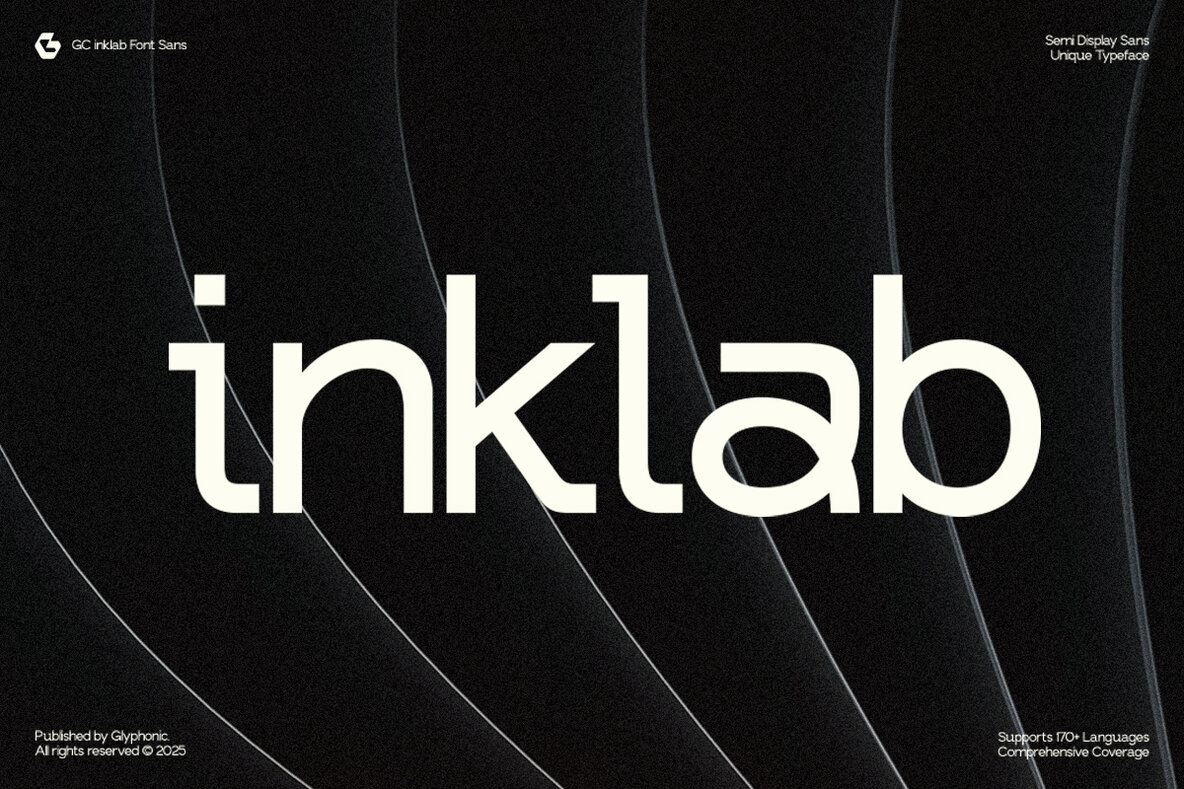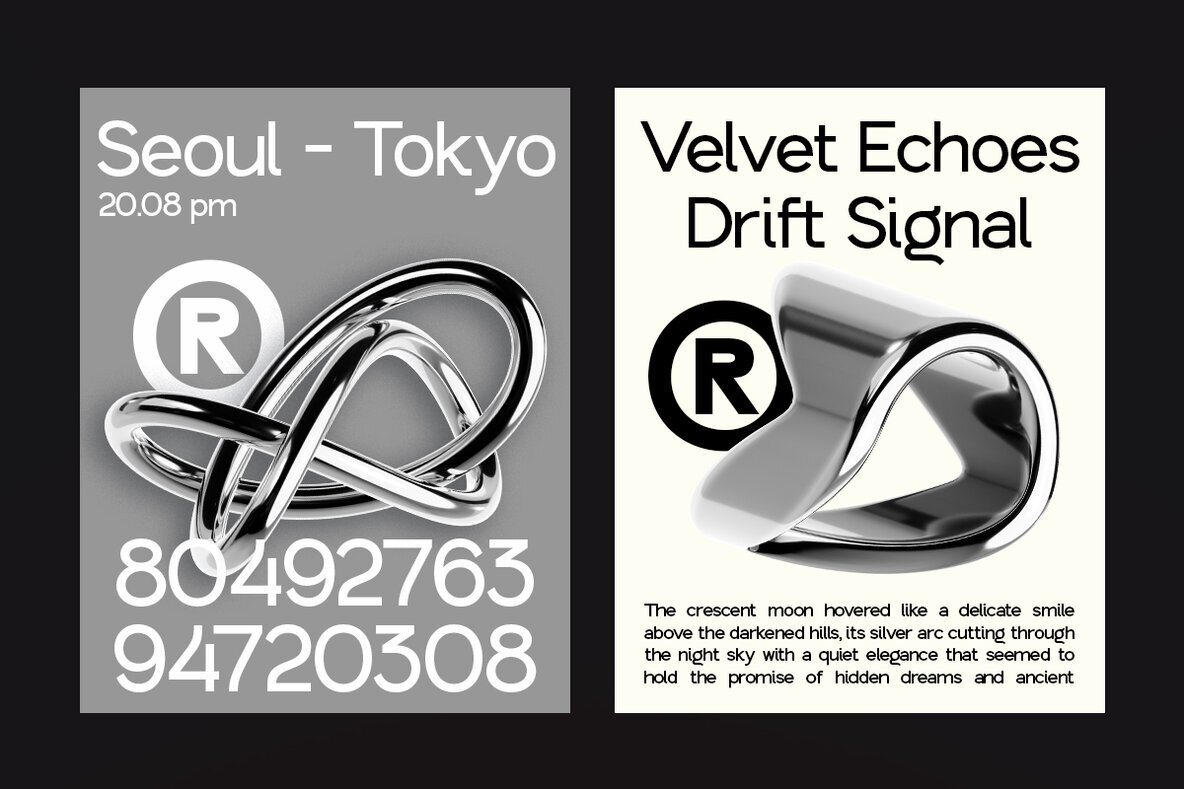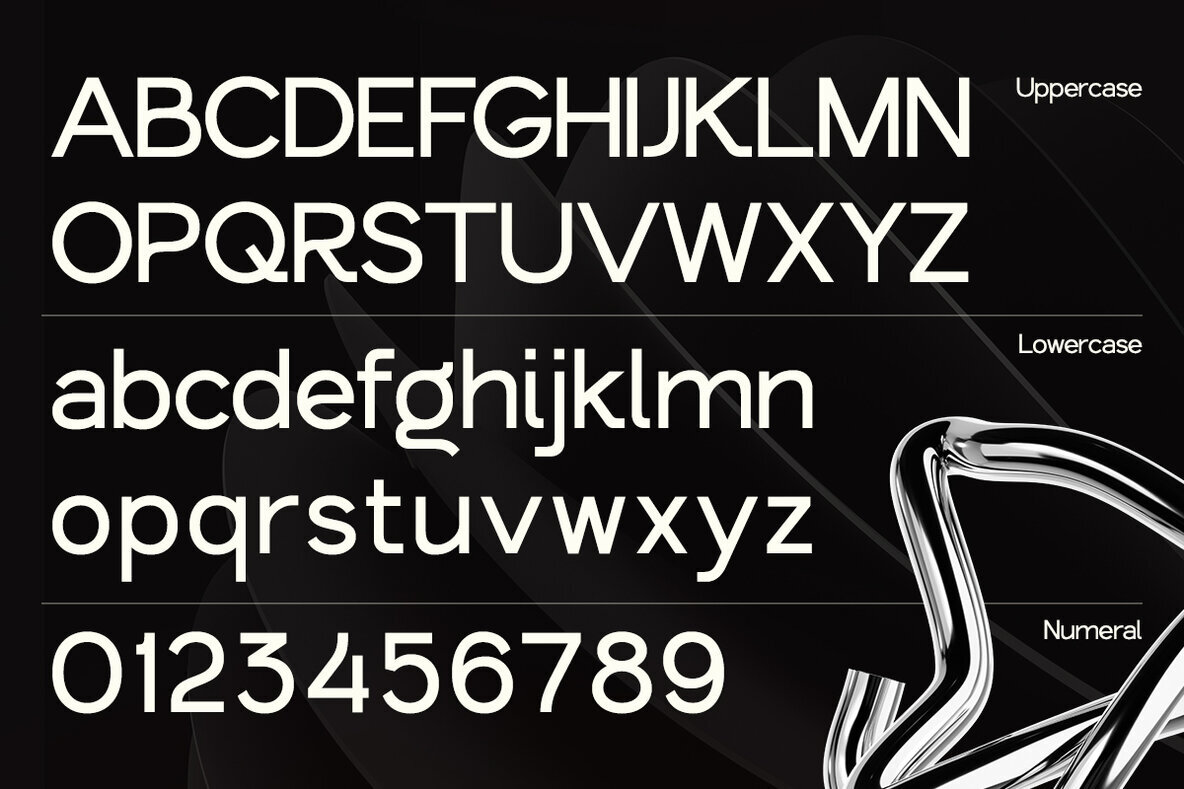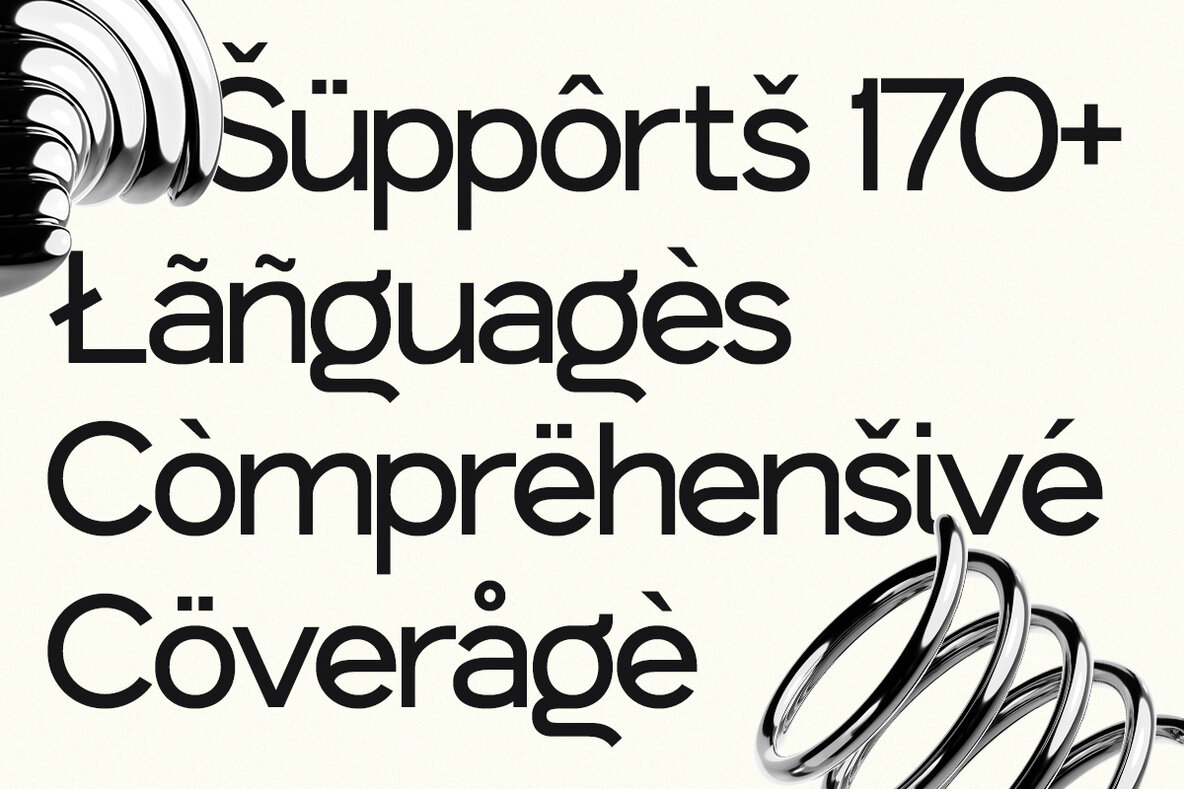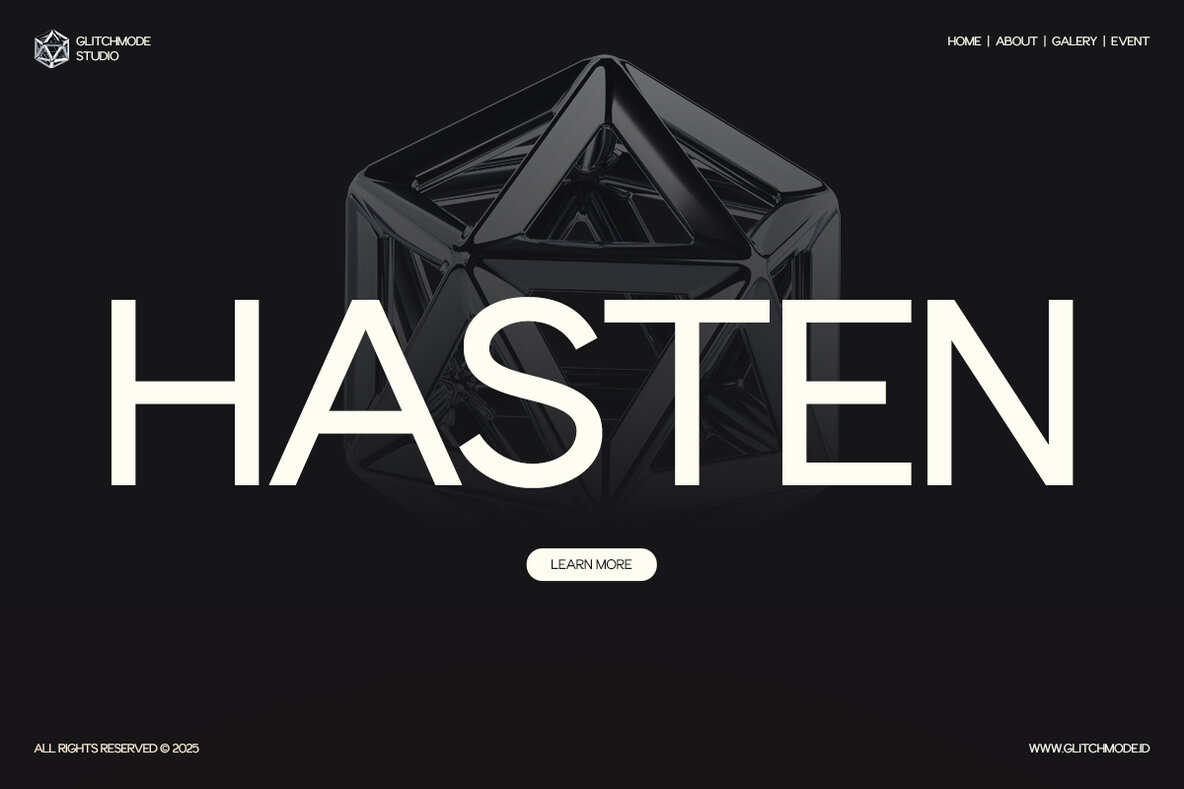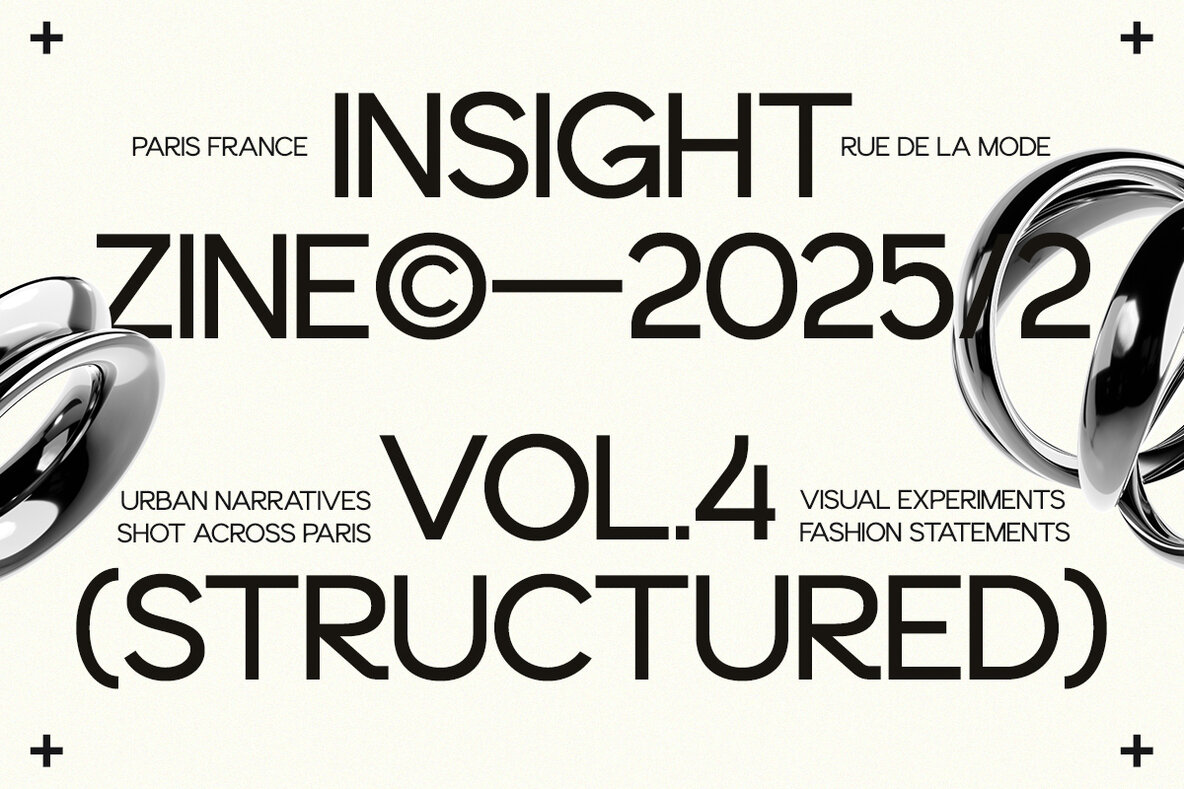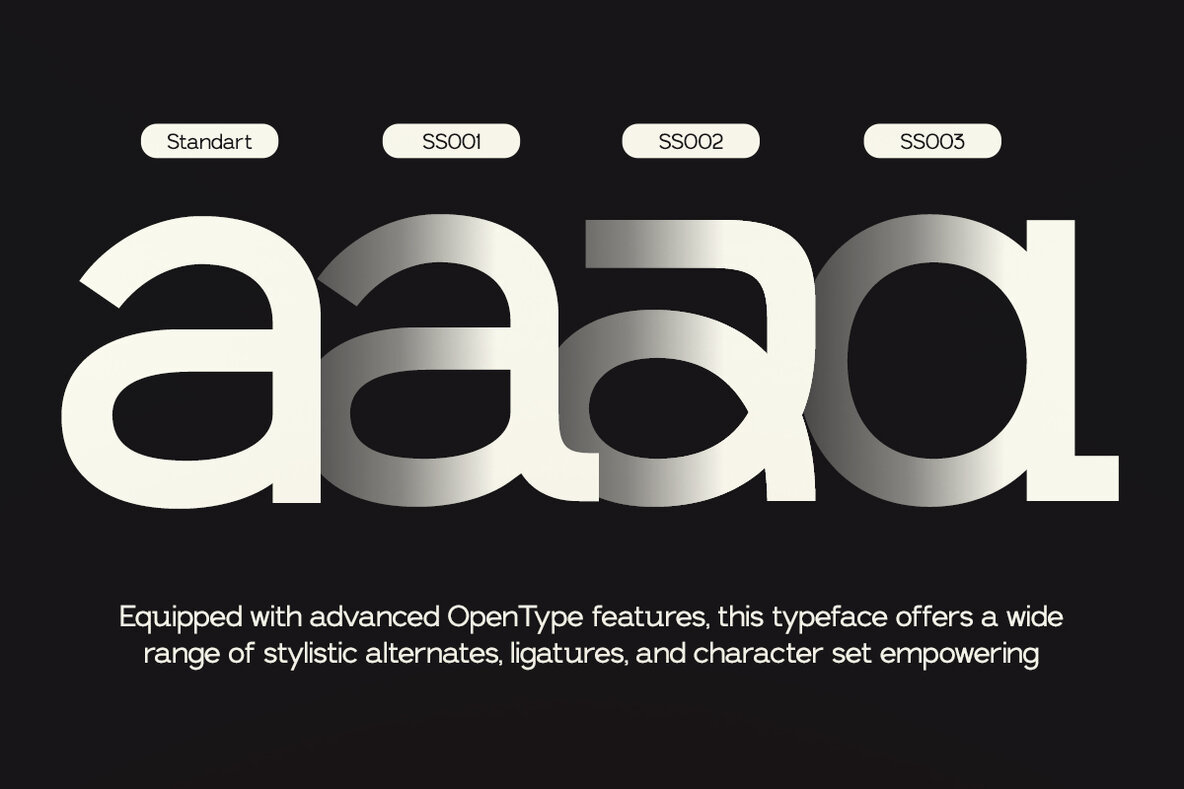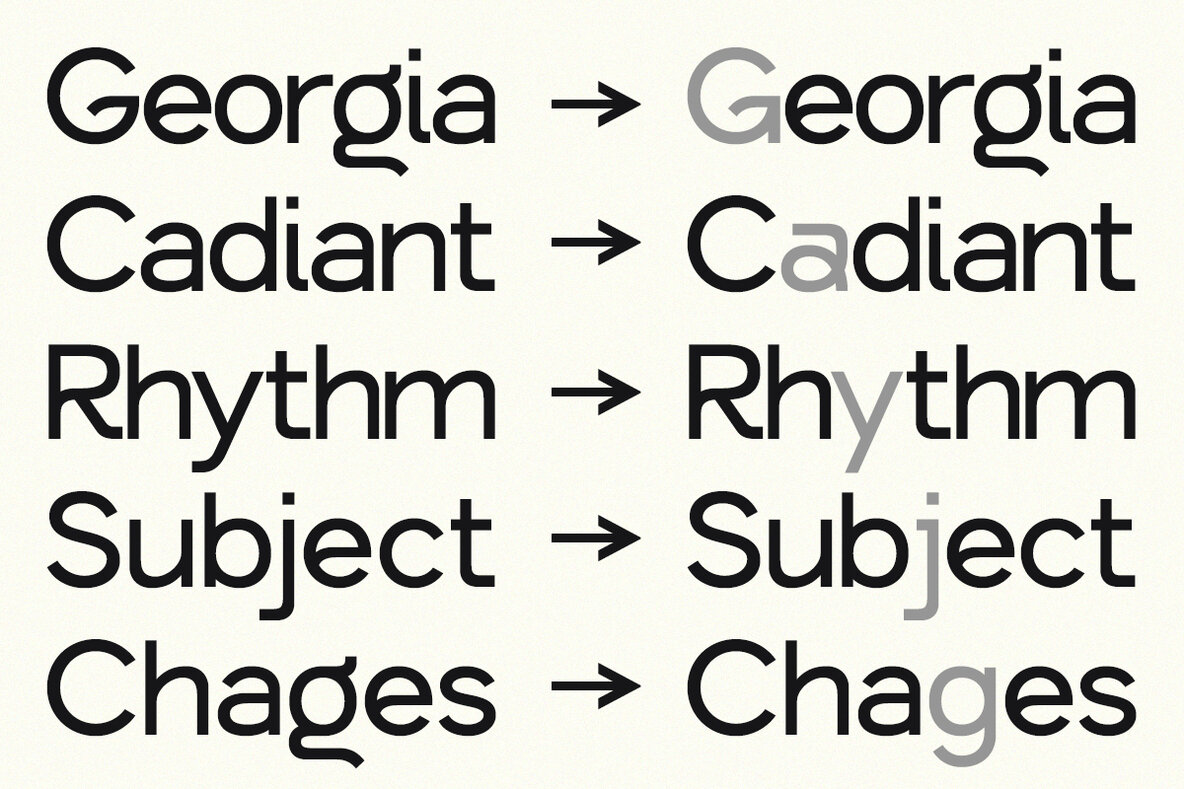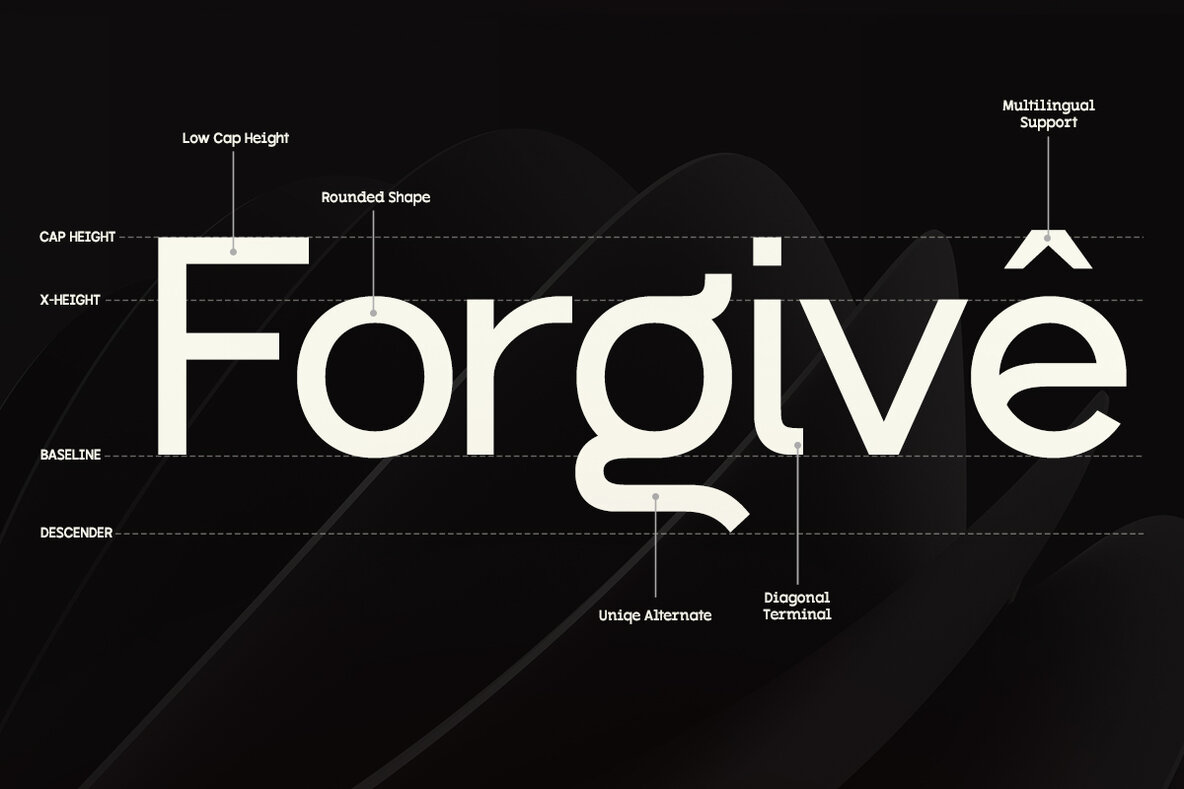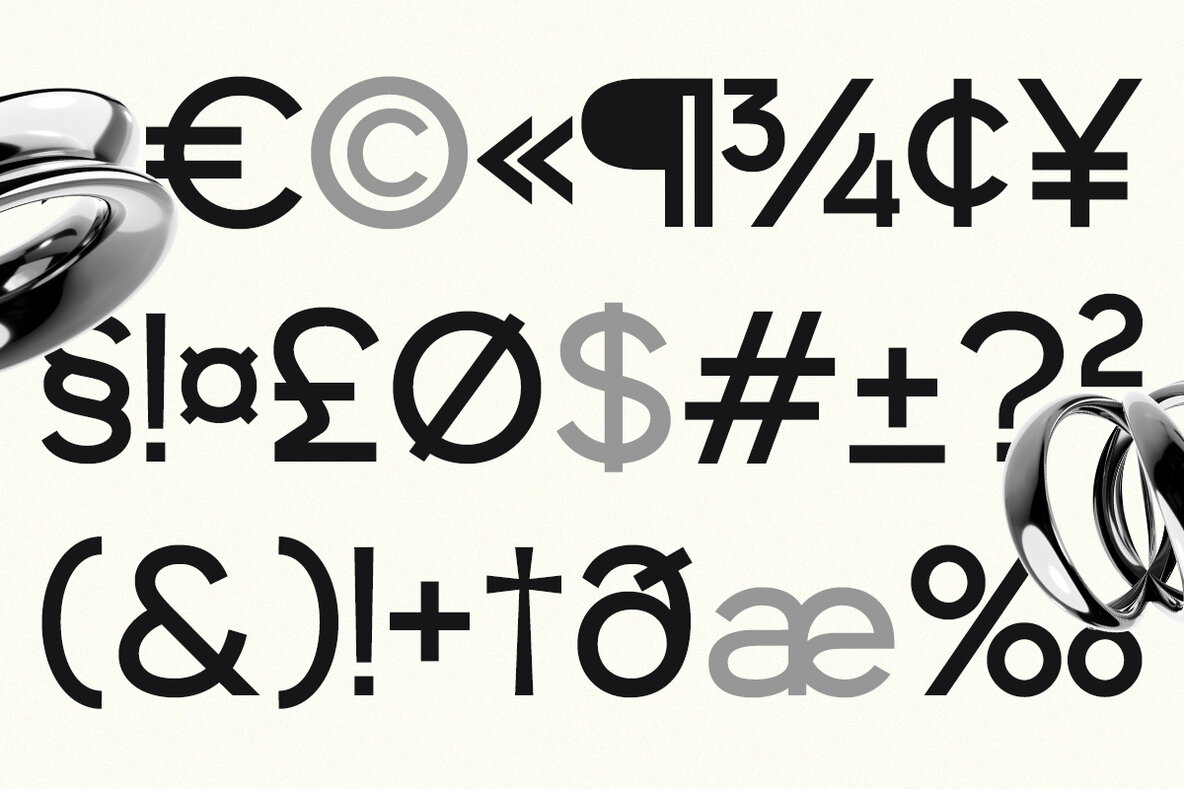
GC Inklab Font
GC Inklab offers a bold blend of geometric precision and typographic experimentation. This semi-display sans-serif typeface is expertly crafted for striking headlines, contemporary branding, editorial work, and digital interfaces, ensuring clarity and distinction in every detail. Its balanced letterforms and impeccable construction, accented with subtle quirks, provide a forward-thinking yet accessible appeal. Ideal for tech brands, design posters, user interface systems, and creative identities, GC Inklab embodies a smart, modern persona. GC Inklab is a perfect choice to imbue your design with precision, modernity, and memorability.GC Inklab: Where Geometry Meets Typography